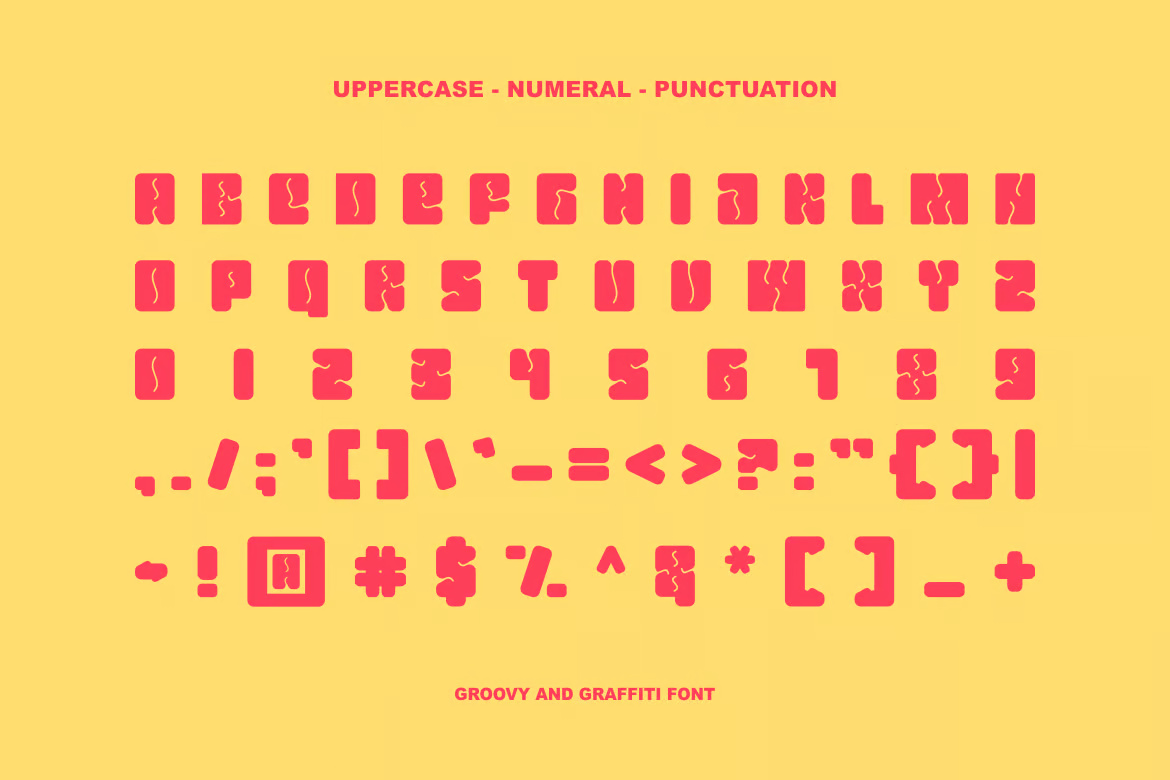
Denamoca – Groovy & Graffiti Font
Denamoca Font – Modern Font is a bold and authentic display typeface that brings a strong and dynamic presence to any design. With its clean lines and striking appearance, this font is perfect for branding projects such as logos, t-shirt printing, esports, posters, social media graphics, and more. Its versatility allows it to stand out in a wide range of creative contexts, making it an excellent choice for eye-catching designs.
Denamoca – Groovy & Graffiti Sans-Serif Font
Denamoca - Groovy & Graffiti Font